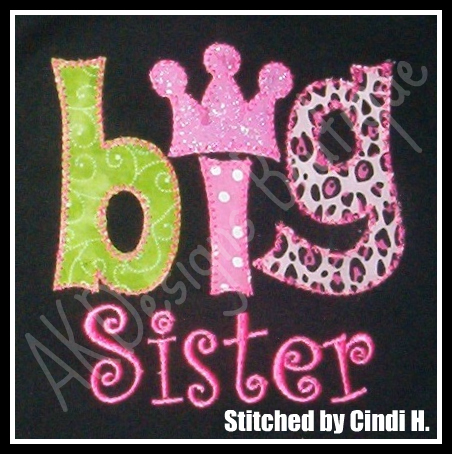
No 1355 Applique Princess Font Machine Embroidery Designs 4 inch high
• Example stitched by Cindi H. - she used a Curlz font [like our CurlyQue Font] for "sister".
No 1355 Applique Princess Font Machine Embroidery Designs 4 inch high
• 26 Zig Zag Stitch Applique Uppercase Letters – 4" high
• 26 Zig Zag Stitch Applique Lowercase Letters
• 10 Zig Zag Stitch Applique Numbers
• 3 Zig Zag Stitch Applique Crowns
• 3 Zig Zag Stitch Applique Hearts
• 9 Alternate Zig Zag Stitch Applique letters with hearts [a, b, d, g, i, j, o, p and q]
Designed to combine and spell names
This font will look very cute stitched for a boy too ~ just don’t add the hearts & crowns!